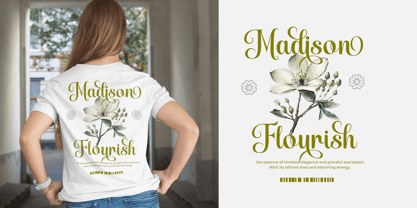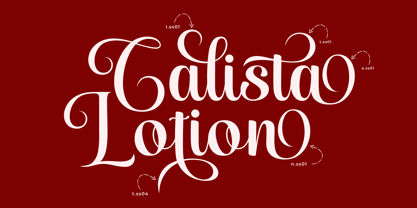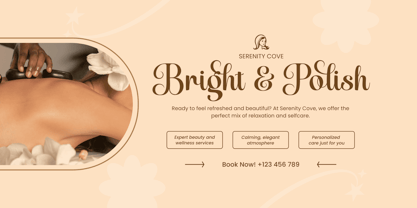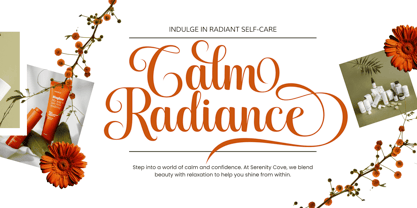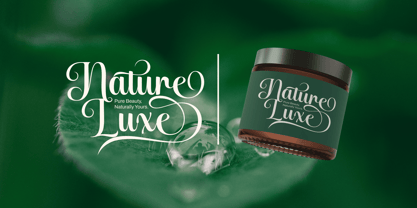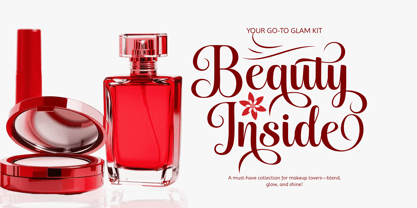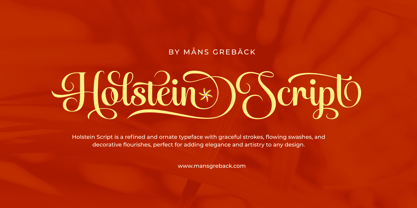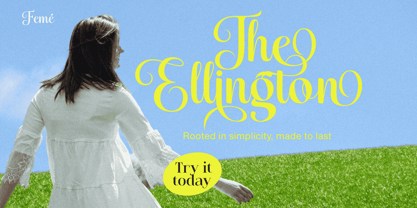
Holstein Script
by Mans Greback
The Holstein Script Font Family was designed by Måns Grebäck and published by Mans Greback. Holstein Script contains 2 styles and family package options. More about this family
Holstein Script is a graceful calligraphic typeface where elegance meets playfulness. Its sweeping curves and ornate loops create a sense of charm while maintaining a refined structure. The tall ascenders and generous swashes give it a celebratory personality, yet it remains legible and balanced. With every letter thoughtfully crafted, it blends classic script traditions with a touch of modern flourish. Its decorative capitals draw the eye instantly, while the smooth lowercase forms carry the writing forward with rhythm and ease. The font is built with advanced functionality and guaranteed top-notch quality, containing stylistic and contextual alternates, ligatures and more automatic and manual features; all to give you full control and customizability. It has extensive lingual support, covering all Latin-based languages, from North Europa to South Africa, from America to South-East Asia. It contains all characters and symbols you'll ever need, including all punctuation and numbers. Designed by Mans Greback, whose work often merges artistry with precision, Holstein Script showcases his commitment to creating letterforms that are as expressive as they are versatile.